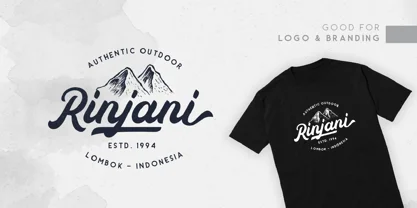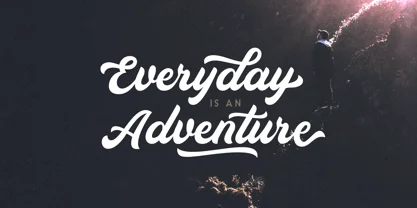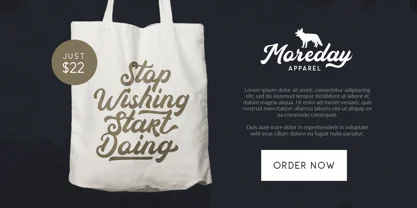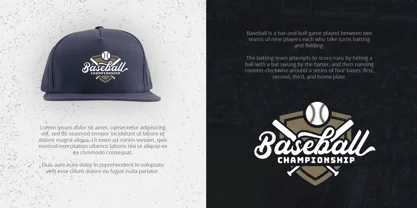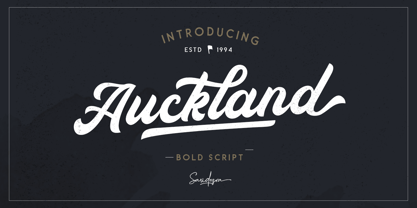
Auckland Script Font
Typography shapes perception at a subconscious level. Auckland Script leverages the kind of restraint that lets content lead to make every composition feel considered. The typeface brings an elegant, calligraphic sensibility to a broad range of creative disciplines, with visual harmony and precise spacing that holds up whether the work is print-first or screen-first.
In practice, Auckland Script proves particularly effective for high-end cosmetic packaging, advertising campaigns, greeting cards, poster creation, signage systems. Designers reaching for it find that the type decisions feel resolved rather than laboured — a useful quality when client timelines are tight.
The range of applications extends to social media graphics, luxury stationery, fragrance labels, wedding invitations. That breadth is deliberate: the proportions and spacing were stress-tested across a wide range of mock briefs before the typeface was finalised.
Pairing Auckland Script with a contrasting serif or a neutral grotesque gives mixed-format layouts a clear visual grammar without requiring constant size adjustments to establish hierarchy.
Art directors commissioning type-led campaigns find Auckland Script a reliable choice for projects that demand both personality and restraint. The design avoids the self-conscious quirkiness that dates quickly, settling instead for considered distinctiveness that holds up over time.